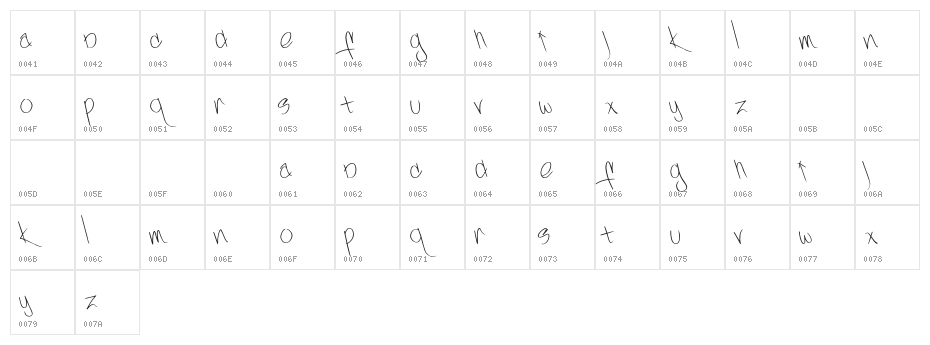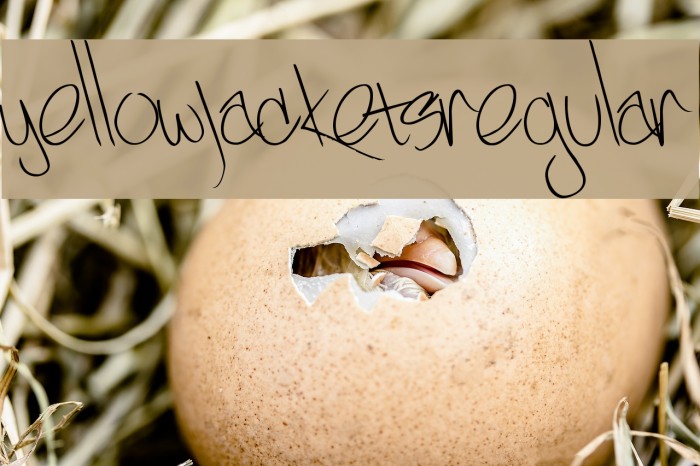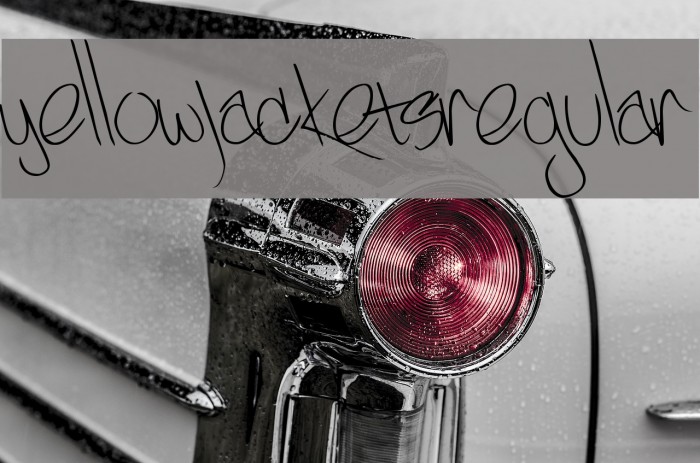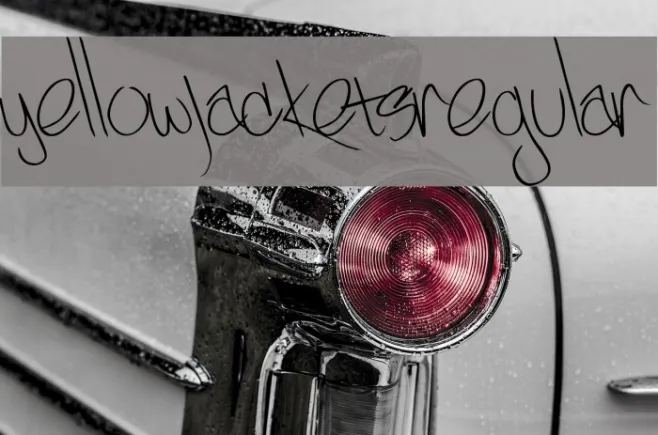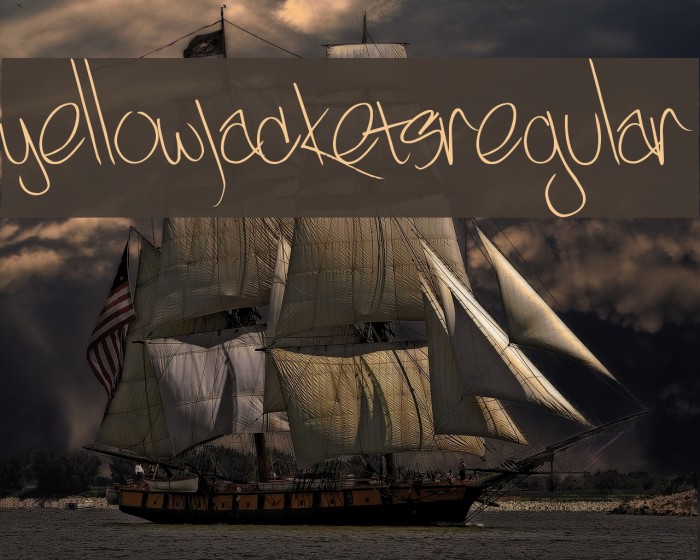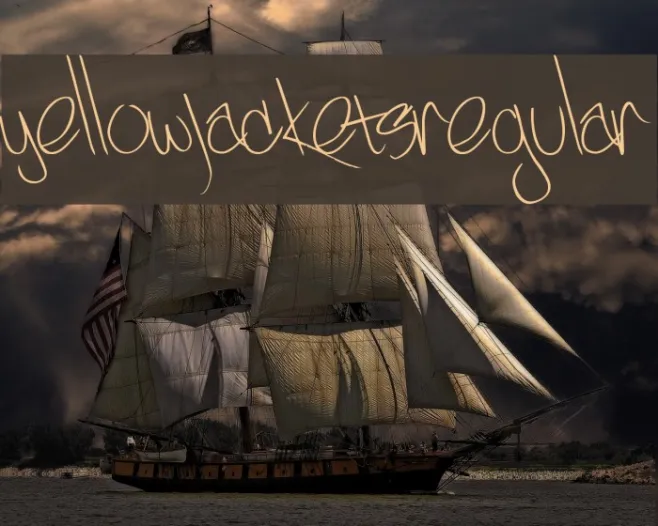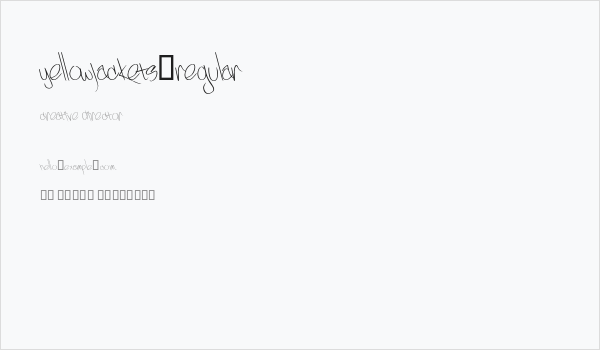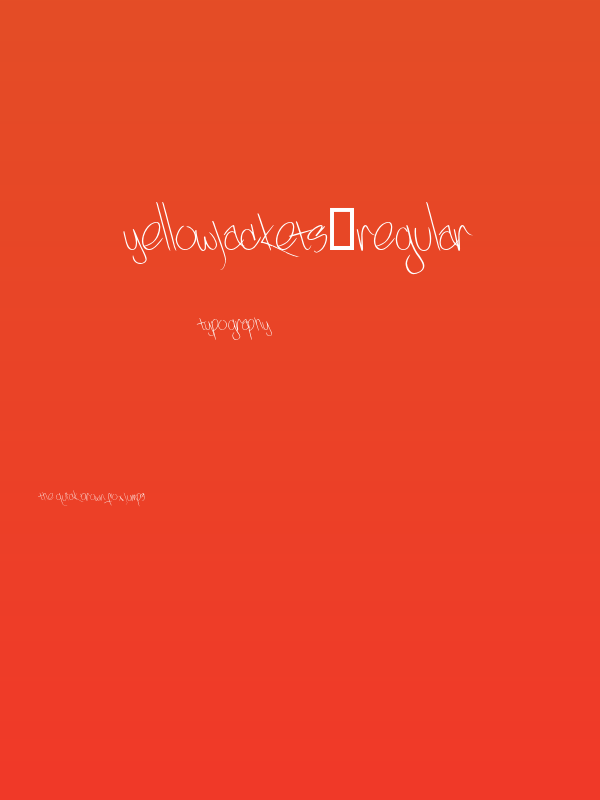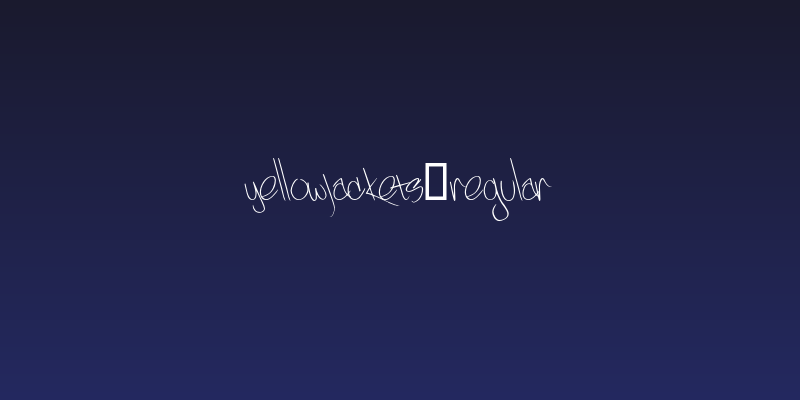
Yellowjackets-Regular Font
Yellowjackets-Regular Description
This font features a playful and dynamic handwritten style, characterized by its elongated and slightly slanted letterforms. The strokes are fluid and organic, giving it a casual and informal appearance. The letters are interconnected with a natural flow, enhancing its handwritten aesthetic. The overall design is whimsical, with a touch of elegance, making it suitable for creative and artistic projects. The font lacks traditional serifs, focusing instead on a freeform script style that conveys a sense of movement and spontaneity.
| Overall Style | Casual, Artistic |
| Proposed Projects | Ideal for greeting cards, invitations, personal branding, and creative projects that require a personal touch. |